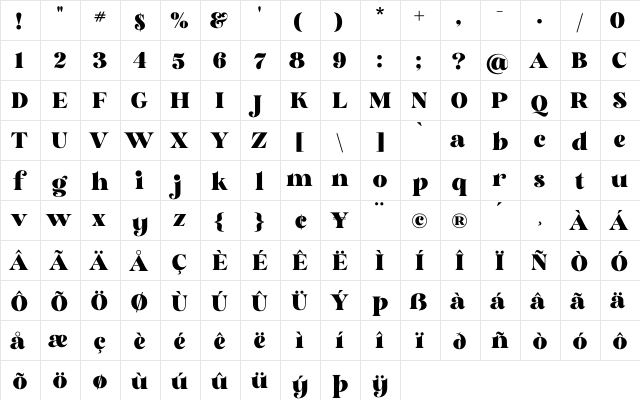
Glory Sunshine Regular
| Foundry | Kong Font |
| Designer | Kong Font |
Design Context for Glory Sunshine Typeface
Glory Sunshine offers clean, dependable letterforms without strong stylistic allegiance, making it a practical choice for designers who need flexibility.